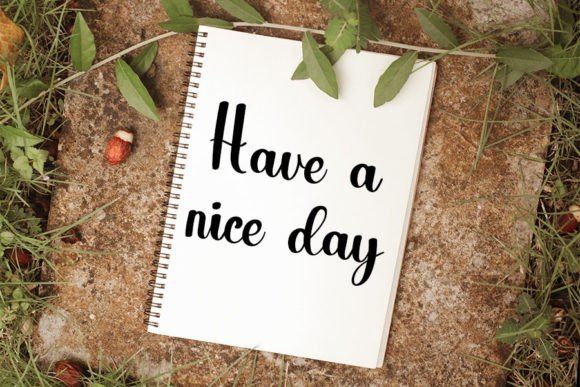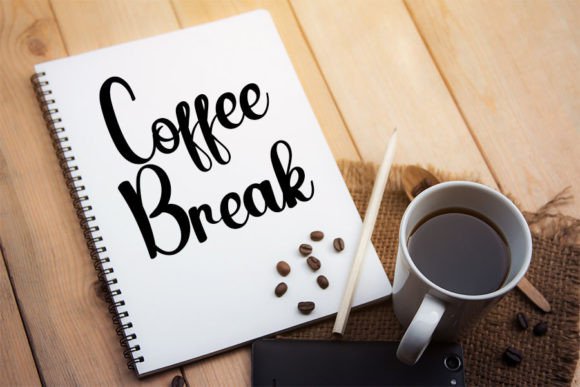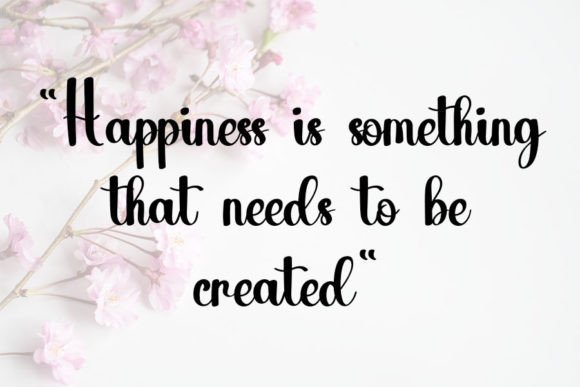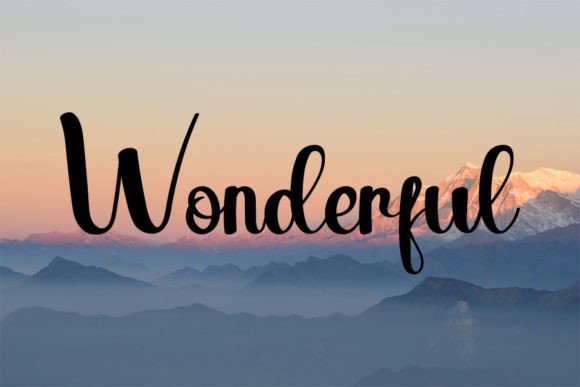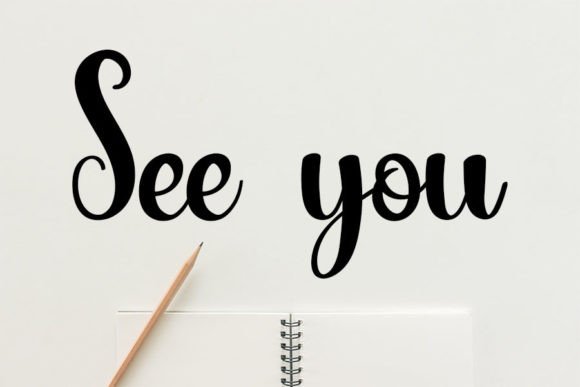
Introduction to Mountaine Font
Have you ever stumbled upon a beautiful handwritten quote on a social media post and immediately felt the urge to recreate it on a canvas or a card? That’s exactly what happened to me when I came across a stunning piece of art created with the Mountaine Font. The moment I saw the flowing letters and the carefree vibe, I knew I had to dive deeper into this font and explore its endless possibilities.
As a designer, I can attest that having a reliable design resource like the Mountaine Font can be a game-changer for any creative project. With its friendly feel and high-quality aesthetic, this font is perfect for adding a personal touch to your DIY projects, social media posts, or even calligraphy scripts. Whether you’re looking for a free download with a transparent background or a versatile font for your next design venture, the Mountaine Font is definitely worth exploring.
Key Features of Mountaine Font
- High-quality design resource ideal for creative projects, offering a unique and elegant style.
- Unique characteristics include a mix of modern and rustic elements, making it perfect for a variety of design projects.
- Designed to work well on both digital and print materials, including business cards, logos, and signage.
Honest Review: Mountaine Font
I recently stumbled upon the Mountaine Font, and I must say it’s a great addition to any designer’s toolbox. This free download is perfect for those looking to add a touch of elegance to their creative project.
- ✨ The high quality of the font is immediately noticeable, making it a great resource for any design project.
- ✨ The transparent background option allows for easy use on any color or design, giving designers more flexibility with their design choices.
While the Mountaine Font is a great resource, there are a few limitations to be aware of:
- ⚠️ The font may not be suitable for use in certain design applications, such as those requiring a specific font weight or style.
- ⚠️ Some designers may find the font’s minimalist aesthetic to be too simple for their design needs.
Overall, the Mountaine Font is a solid choice for designers looking for a high-quality, easy-to-use font. Its transparent background option and elegant design make it a great addition to any design resource collection.
Mountaine Font
Mountaine Font is a high-quality design resource that can elevate your creative project to the next level. With its clean and modern aesthetic, this font is perfect for designers and artists looking for a unique and stylish typography.
Mountaine Font is perfect for a variety of creative projects, including:
- Social media graphics and advertisements
- Presentations and business reports
Tips for Getting the Most Out of Mountaine Font
To get the most out of Mountaine Font, be sure to:
- Use it with a transparent background to create a modern and sleek look
- Experiment with different font sizes and styles to create visual interest
- Combine it with other design elements, such as images and graphics, to create a cohesive look
Alternatives to Mountaine Font
Montserrat is a popular sans-serif font designed for digital use. It’s a great choice for creative projects that require a high-quality, modern look. Montserrat is available for free download and comes with a transparent background, making it easy to use in various design scenarios.
Montserrat compares well to Mountaine Font in terms of its modern and clean design. However, Montserrat has a more geometric feel, making it suitable for projects that require a strong, urban aesthetic. Use Montserrat for digital designs, signage, or any project that demands a sleek, contemporary look.